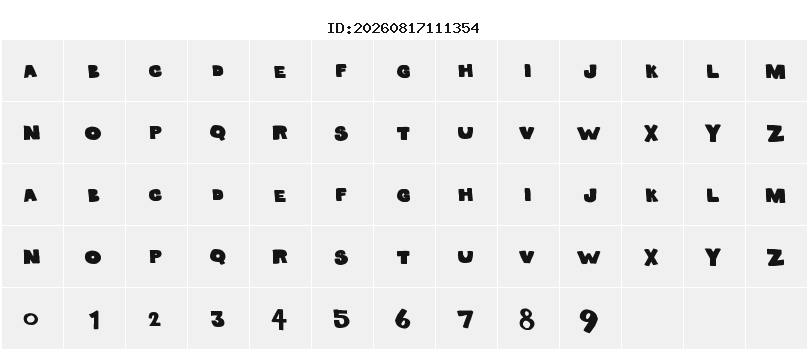
SolidMarker Preview
• Font Name: SolidMarker
• Font ID: SolidMarker:Version 1.00
• Full Font Name: SolidMarker
• Version: Version 1.00 August 6, 2012, initial release
• PostScript Name: SolidMarker
• Character Count: 64
• Designer: Max Infeld
• Manufacturer: Xerographer Fonts
• Description: Made at Empire Coffee Chico,CA
About SolidMarker.ttf
SolidMarker.ttf is a modern, elegant sans-serif font designed for ultimate readability and visual harmony. Perfect for branding, headlines, web design, and print materials.